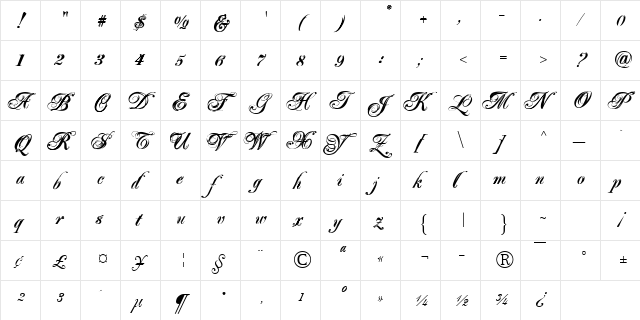
Majestic X Regular
| Foundry | Alexandra Gophmann |
| Designer | Gophmann A.L. |
Design Context for Majestic X Typeface
Majestic X is a composed and adaptable typeface that performs quietly and consistently across a wide range of design contexts.